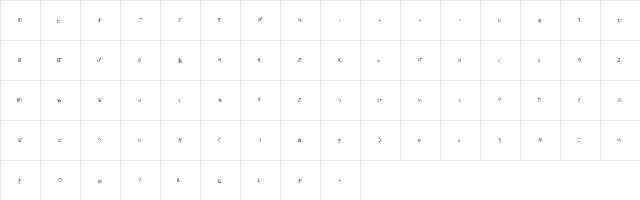
Sakura Irohanihoheto Regular
Design Context for Sakura Irohanihoheto Typeface
Sakura Irohanihoheto takes a measured approach to typography — its balanced proportions and neutral character make it a reliable workhorse for both digital and print work.